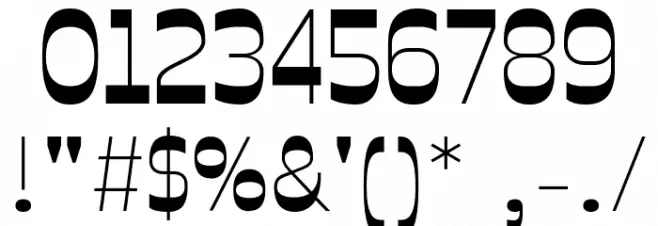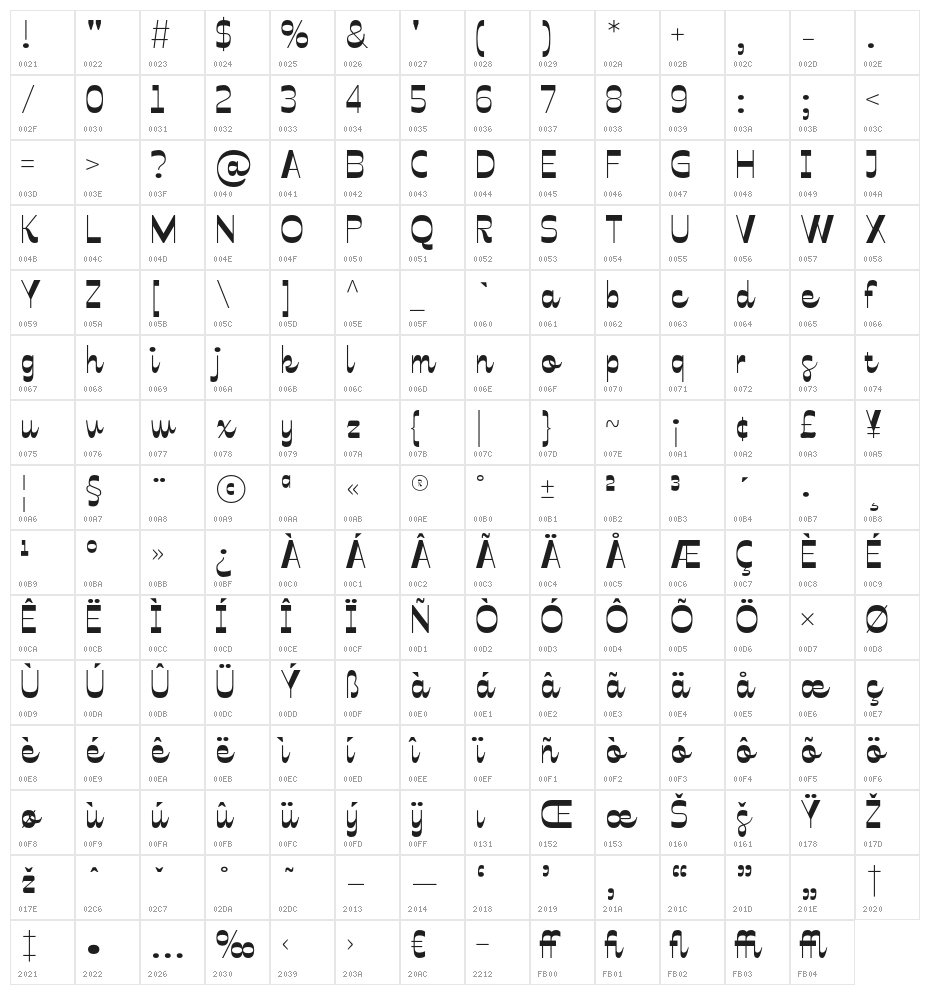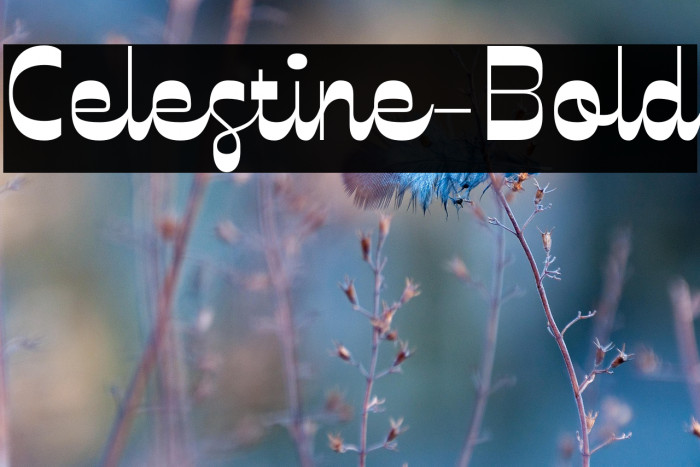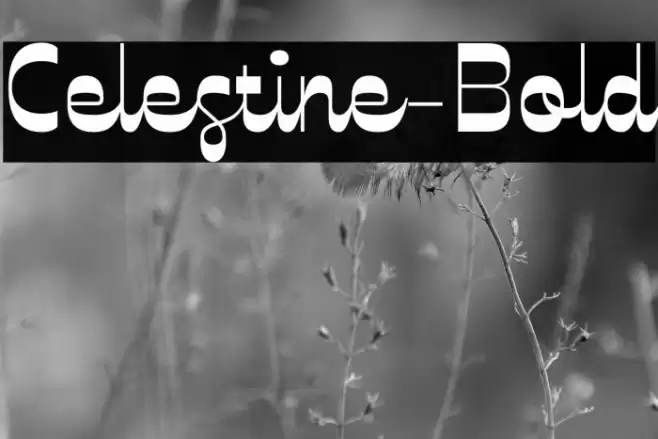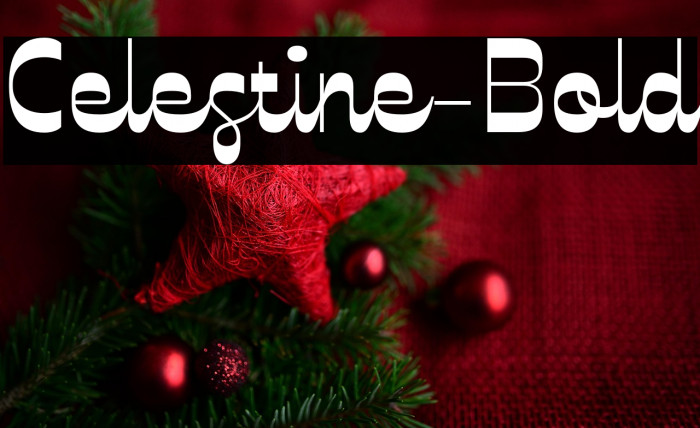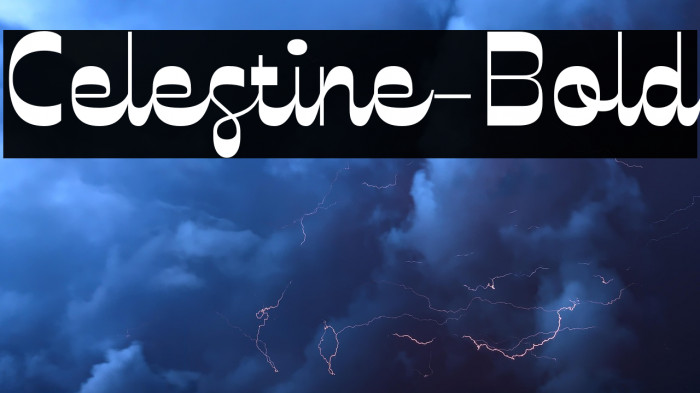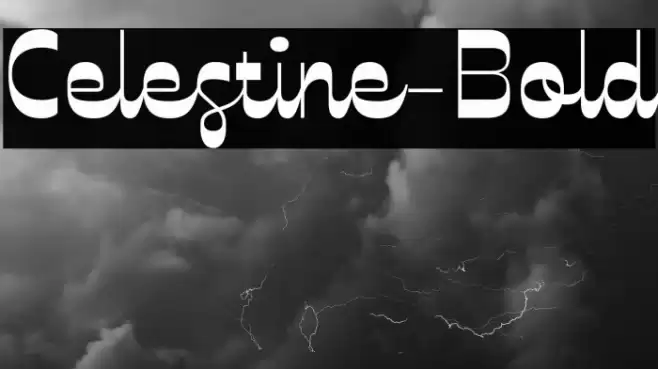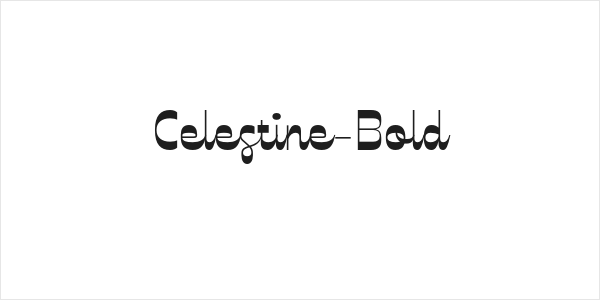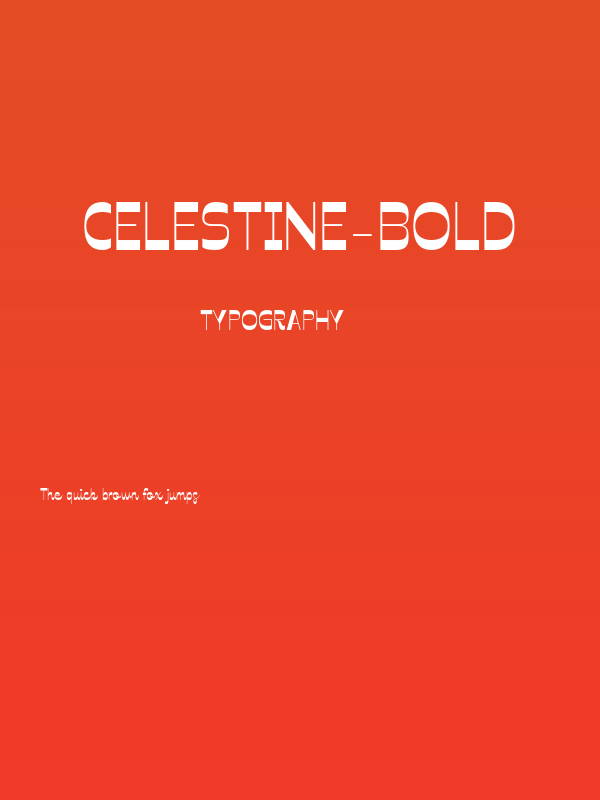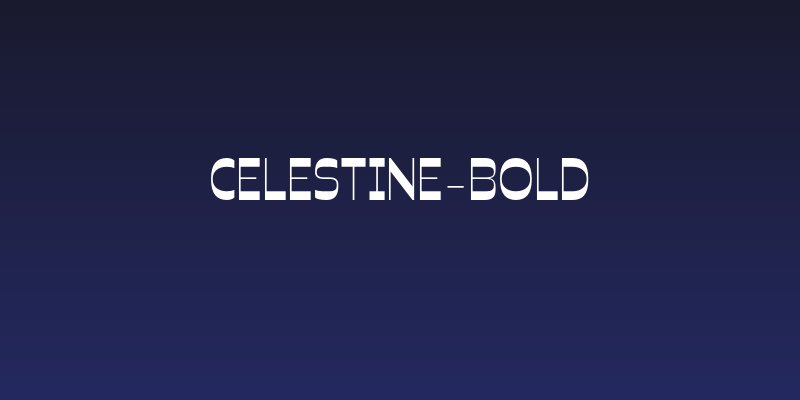
Celestine-Bold Font
Celestine-Bold Description
This font features a bold and modern design with a unique blend of geometric and rounded elements. The uppercase letters are characterized by their strong, clean lines and slightly condensed form, giving them a striking appearance. The lowercase letters maintain a playful yet sophisticated style, with some characters exhibiting a slight slant or curve that adds to the overall dynamic feel. The numerals are robust and consistent, ensuring readability and impact. Special characters are designed to complement the overall aesthetic, making this font versatile for various applications.